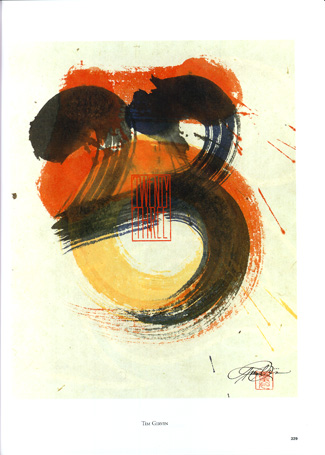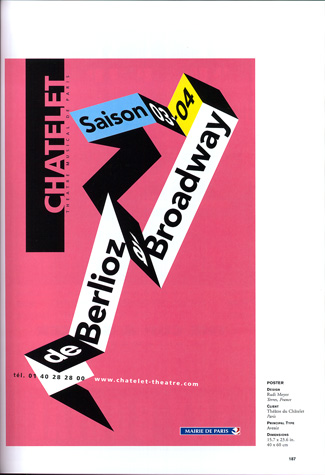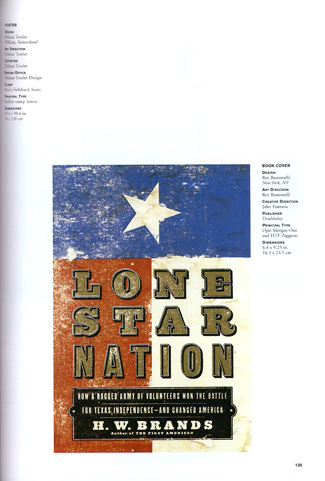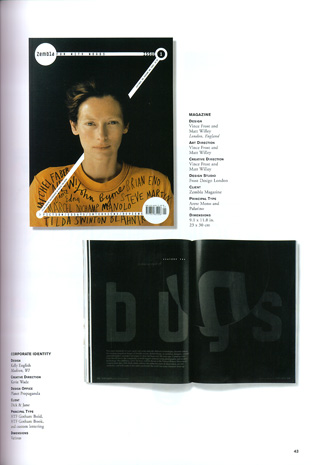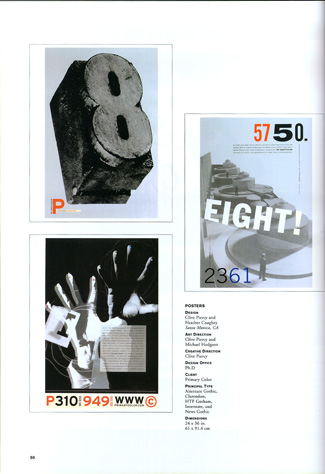
dot-font: Twenty-five Years of Type
As the Type Directors Club celebrates fifty years of competitions and twenty-five years of annuals, John D. Berry takes a look at the resulting book, "Typography 25."
Every year, the Type Directors Club in New York hosts an exhibition of the winning designs from its competition for the year's best typography -- that is, the best graphic design using type -- and from its companion competition for the best new typeface designs. And every year, a few months later, TDC publishes its annual, Typography: the Annual of the Type Directors Club, which shows all the winning entries from both competitions. The first TDC show was in 1954, and the first annual was published in 1979, which makes last year, 2004, the fiftieth anniversary of the competition and the twenty-fifth anniversary of the TDC annual. So Typography 25 (showing work done in 2003) is a special volume.
Since this is the twenty-fifth Typography annual, TDC asked twenty-five typographic designers to design a special section at the back of the book, "Celebrate 25," where each designer created a page that embodied one of the numbers from 1 to 25. Some are high-concept, some are playful, some are calligraphic, some are photographic; each of the designers (all of them well-known in their field) obviously had fun with this eccentric assignment.
Twenty-five years in twenty-five pages: the number '17' interpreted by Jack Anderson, and '23' by Tim Girvin.
Typographic Variety
It's always tempting to try to find patterns and draw conclusions about the current state of typography based on the results of the competition. While the sheer size of the book gives a pretty good overview of the state of the art, there's usually very little you can point to as a trend. There's just good work.
Some of this work uses straightforward type in straightforward ways, valuing clarity and simplicity over complexity. The type may be integrated into a visual composition that does something unusual while making no bones about its typographic origins.
Sometimes simplicity is the most effective technique.
There's also an awful lot of layering and mixing up of forms and styles, including plenty of faux-naïve lettering. This is most effective when it manages to combine complex textures with stark contrast, emphasizing both, while making visual sense of the whole. Often it's not type at all but hand-lettering that's being used. Rarer is type integrated successfully with calligraphy.
Unbridled handwriting and controlled calligraphy.
Books and Magazines
I was pleased to see a number of books among the winners -- both covers and interior designs. Books are harder to evaluate in the short time allotted for judging competitions, so the flashier ones tend to get the most attention. On covers, this often makes sense; in the interior pages... well, it depends on the book's purpose. (If only a well-set page of text really were normal enough to be dismissed as ordinary! Unfortunately, today's norm is often very sloppy in its typographic details.)
Striking book covers where the feeling of the type itself is important.
Not surprisingly, a lot of interesting typography is done for magazines, and the selection here reflects that. Although there are separate competitions for publication design, the TDC competition focuses on how type is used -- and naturally, in any popular magazine with a lot of words, there's ample opportunity for imaginative type treatments.
A typographic spread and a magazine cover, both playing with the size and placement of the type.
TDC-too
The typefaces chosen by the judges of the type-design competition, TDC2 2004, are almost all text faces, or at least faces that can do double duty as display or text. Christian Schwartz has by far the biggest presence this year, with three different type families that he designed for the Font Bureau among the winners, as well as FontShop's FF Unit, which Schwartz worked on with Erik Spiekermann. Multilingual and multiscript typesetting is given plenty of attention: Jovica Veljovic's Sava, which is entirely made up of caps and small caps, has Latin, Greek, and Cyrillic versions, and there are two carefully balanced text faces for bi-scriptual setting: John Hudson's Nyala (Ethiopic and Latin) and Adi Stern's Noam (Hebrew and Latin). There are a lot of typefaces here that look like they would stand up to extended use.
New typeface designs by Mark Jamra (top) and Adi Stern (bottom).
The Typography of Typography
Every TDC annual is also a showcase for its own design, since each year a different designer handles Typography. This year it was Diego Vainesman, a New York designer who is also on the TDC board of directors. The basic page design is always as simple and straightforward as possible, since its purpose is to show off the winning entries without getting in the way. There is always a mix of full-page displays and pages with two or three small entries shown together. It's important that the caption information be easy to find and clearly associated with the right image, but the captions shouldn't be too large an element on the page. Vainesman's design achieves its goal without apparent effort (which means that it must have actually taken a lot of effort).
A page showing three posters from the same designer.
Where a designer can have fun with a book like this is in the front matter and back matter, and of course on the cover. Vainesman's use of enlarged numbers and punctuation marks as design elements, in contrasting color, treats type as image, but keeps that essentially decorative use subordinate to the content. For the actual text of the book, he chose a highly readable typeface, though he contrasts that with an obviously 1970s-style bold display face for the section titles. (He uses both together on the jacket.)
The typography of a book that celebrates excellence in typography ought to be exemplary, so the handful of faults in Typography 25 bother me more than they might otherwise do. In the list of TDC members in the back, where each name is followed by the member's date of joining the club, the dates are given in abbreviated form -- '67, for example -- but every one of the apostrophes is reversed, appearing as a single open-quote. This is what a word processor or page layout program will do automatically, but it should have been caught in production proofreading. A more conscious mistake was using caps and small caps in the subheads of the captions but not choosing a typeface that had real small caps; the resulting difference in weight between large and small caps is jarring, once it comes to your attention.
But the wit that Vainesman displays in his design is a pleasure. I laughed out loud when I noticed what he had done with the "fi" ligature in the book's title on the front of the jacket. (Then I chuckled again when I looked at the jacket's back, but you'll have to get the book to see what amused me there.)
Is that a real ligature, or isn't it?
Both typography and type design are, at heart, crafts that everybody sees but very few people appreciate, or even consciously notice. Although the typographic design in the larger competition is sometimes flamboyant, perhaps the last word should go to the chairman of the type-design competition, Charles Nix: "The type specimens that follow are testimony to the efforts of the best practitioners of our quiet craft for 2003. We congratulate the winners and offer every encouragement for continued excellence."